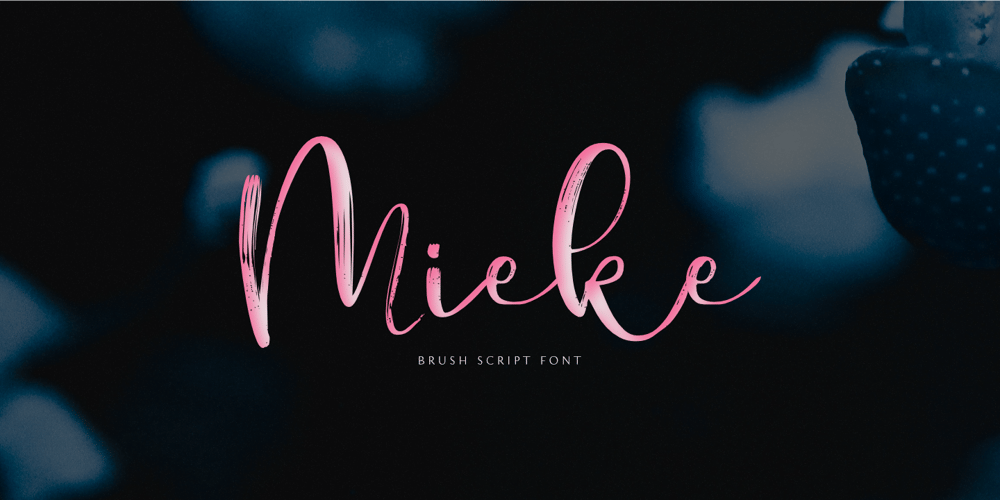
Mieke Font Family was designed by Aldy Sidik, Nurul Hidayani and published by Olivetype. Mieke contains 1 styles and family package options. Mieke is a dry brush handwritten script font. Very cool if use for posters, logos, headlines, branding, etc.So what’s included : Basic Latin A-Z & a-z Numbers, symbols, and punctuations Ligatures and swashes Accented Characters : ÀÁÂÃÄÅÆÇÈÉÊËÌÍÎÏÑÒÓÔÕÖØŒŠÙÚÛÜŸÝŽàáâãäåæçèéêëìíîïñòóôõöøœšùúûüýÿžß Thank you